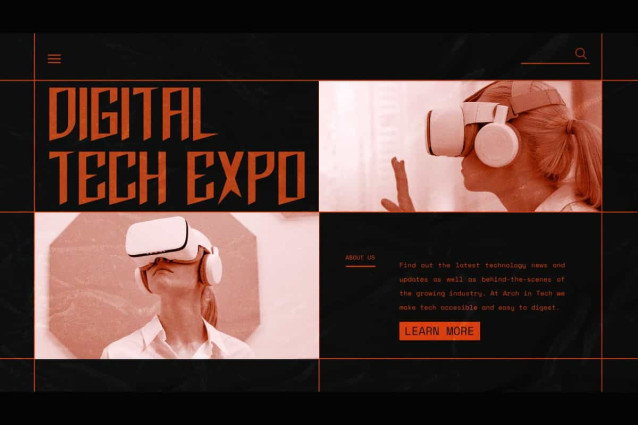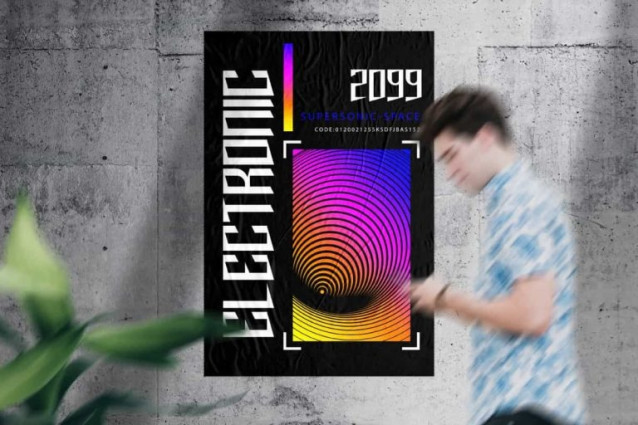
Luxemour Font
Luxemour Font is a gaming adventure and modern action style font with a unique look designed by NoahType. This font has a simple but unique style because it has a techno touch. It will be good for any designs, such as label, custom design, brand image, invitation, marketing material, menu, poster, product packaging, quotes, signage, stationery, web, and many more!
Luxemour Font includes a complete set of Uppercase and Lowercase Basic Characters with different looks for both, Numerals, Punctuation and Symbol. The characters of this font will give futuristic look and also a perfect choice for many industries, such as fashion, accessories, advertising, event or festival, game, movie, photography, printing, publishing, etc.